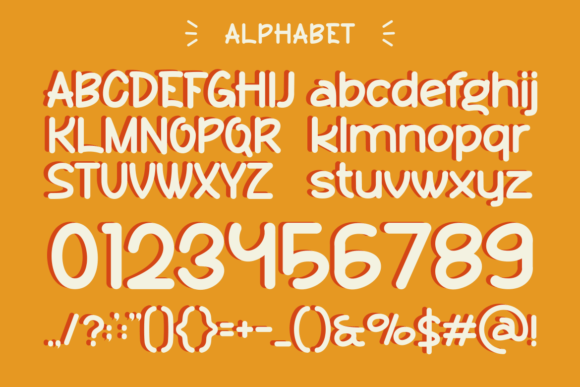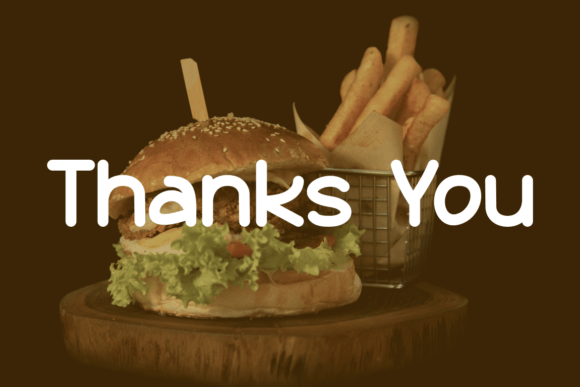
Introduction to Smile Burger Font
As a designer, you’ve probably been there – staring at a blank canvas, unsure of where to start your next creative project. The cursor blinks, taunting you to take the leap, but the perfect font eludes you. That’s where Smile Burger Font comes in – a fresh and neat sans serif font that’s about to revolutionize your design process.
With its clean lines and transparent background, Smile Burger Font is the perfect addition to any creative project. Whether you’re working on a brochure, a website, or a social media campaign, this high-quality font is sure to elevate your design and make it stand out from the crowd.
Key Features of Smile Burger Font
- High-quality design resource for creative projects, offering a unique and playful touch.
- Features a transparent background, allowing for seamless integration with any design or image.
- Supports multiple languages, making it a versatile design resource for international projects.
- Designed with a modern and fun aesthetic, perfect for branding, advertising, and packaging design.
Honest Review: Smile Burger Font
I recently had the chance to work with Smile Burger Font for one of my design projects, and I must say it’s been a game-changer. This font is a high-quality design resource that’s perfect for creative projects.
- What works well: ✨ The font is extremely versatile and can be used for a wide range of designs, from logos to menus. The high quality of the font ensures that it looks great on both digital and printed materials.
However, there are a few limitations to consider. ⚠️ The font may not be suitable for all types of projects, particularly those that require a more formal or traditional look.
Overall, I’m thoroughly impressed with Smile Burger Font. It’s a fantastic addition to any design resource library, and I’ve already used it for several projects with great results. If you’re looking for a high-quality font that’s easy to use and customize, Smile Burger Font is definitely worth checking out.
The Smile Burger Font is a high-quality, free download design resource perfect for creative projects. With its unique style and transparent background, it’s ideal for adding a touch of personality to your designs.
Tips for Getting the Most Out of Smile Burger Font
Use the Smile Burger Font in combination with other design elements to create a unique and eye-catching look.
Experiment with different font sizes and colors to add depth and visual interest to your design.
The Smile Burger Font is perfect for:
Restaurant and food-related designs.
Brand identity and marketing materials.
Social media graphics and advertisements.